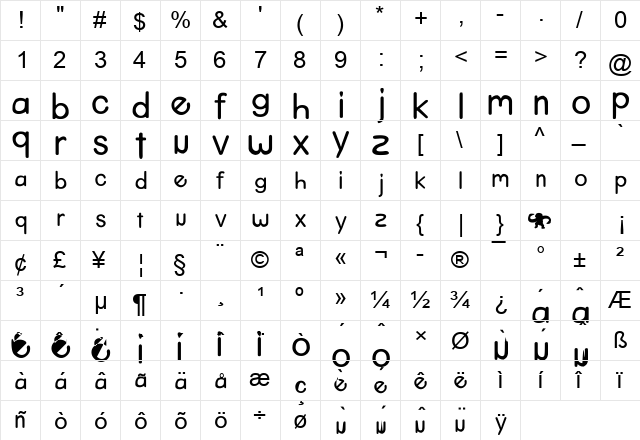
lemur Regular
| Foundry | lemur AND ringtail records |
| Designer | lemur AND ringtail records - Brian Hart |
Design Context for lemur Typeface
lemur takes a measured approach to typography — its balanced proportions and neutral character make it a reliable workhorse for both digital and print work.